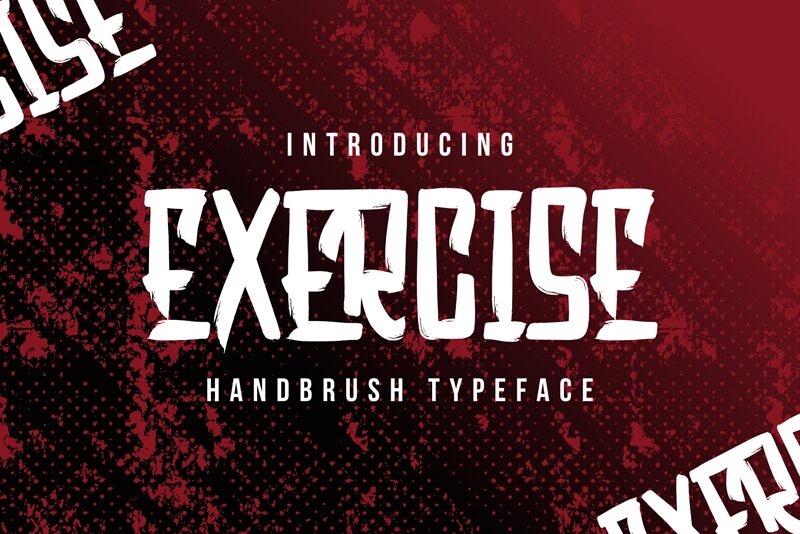
Exercise
Exercise by DumadiStyle is a bold and dynamic brush font that's perfect for projects looking for an edgy touch. Its extra-condensed width adds an element of sophistication to its overall design, making it suitable for a wide range of creative projects such as fitness branding, streetwear apparel, or music album covers. The bold strokes and rough edges of this typeface give off a sense of energy and movement, making it ideal for designs that require a strong visual impact. With Exercise, your typography will never be boring again!